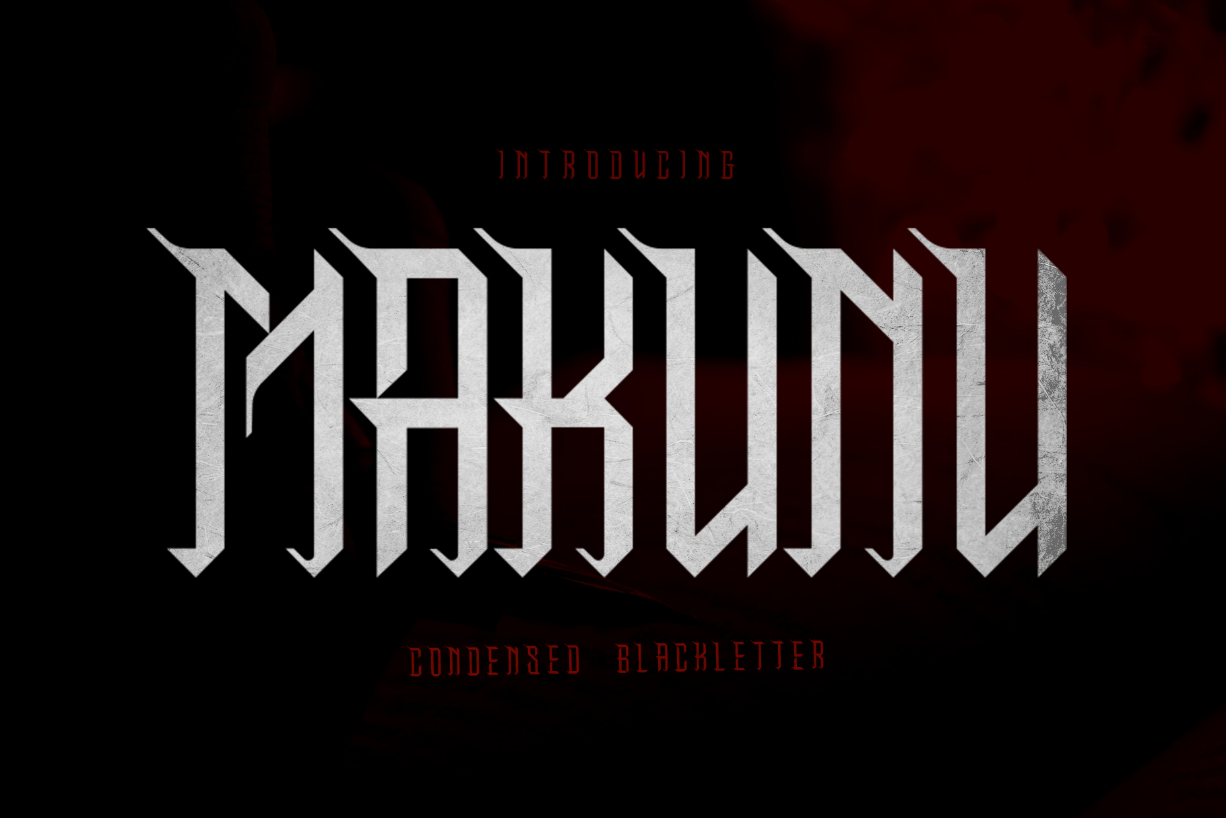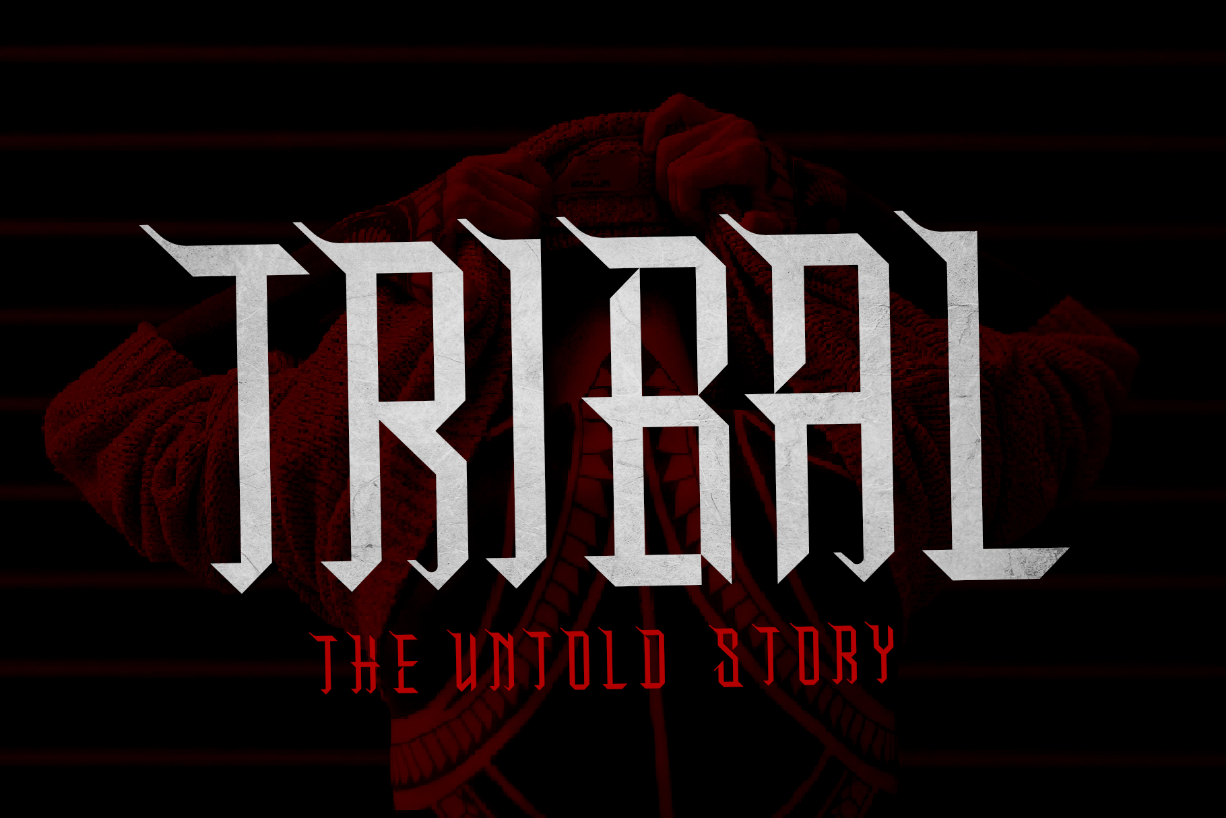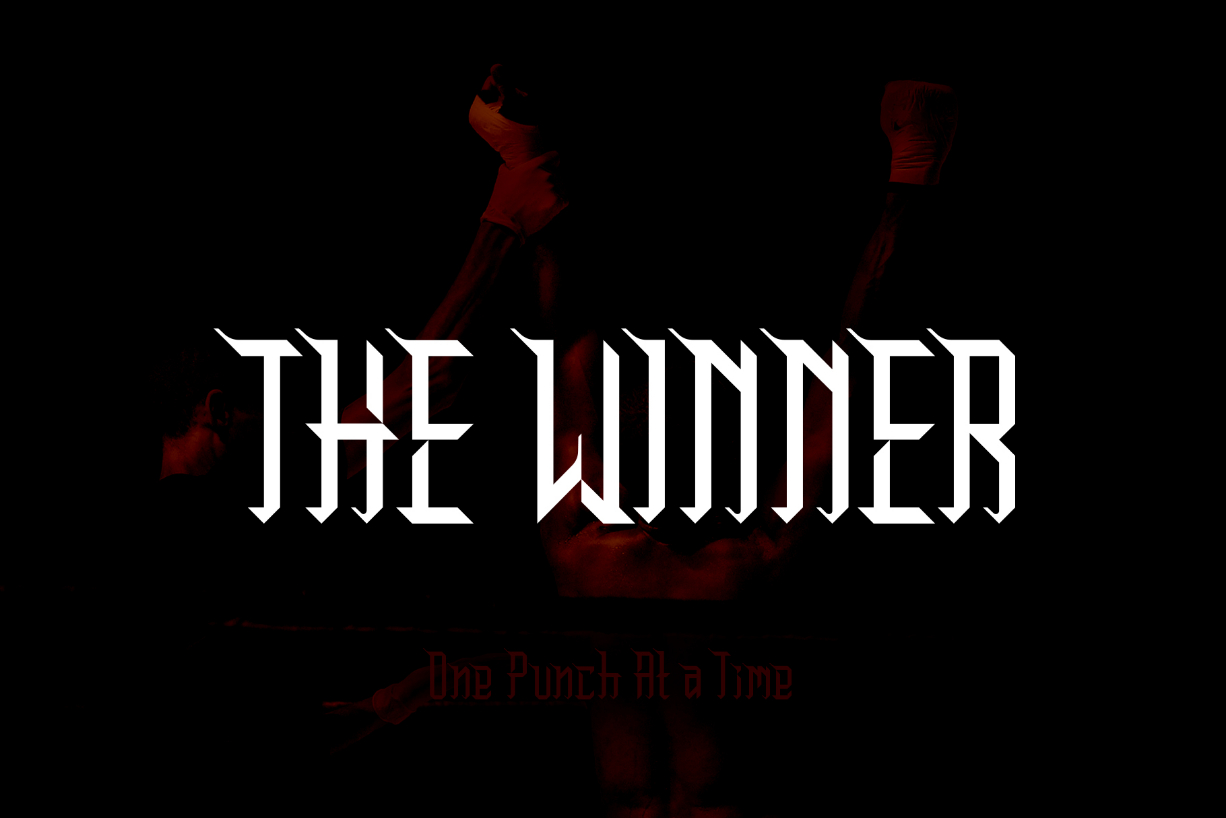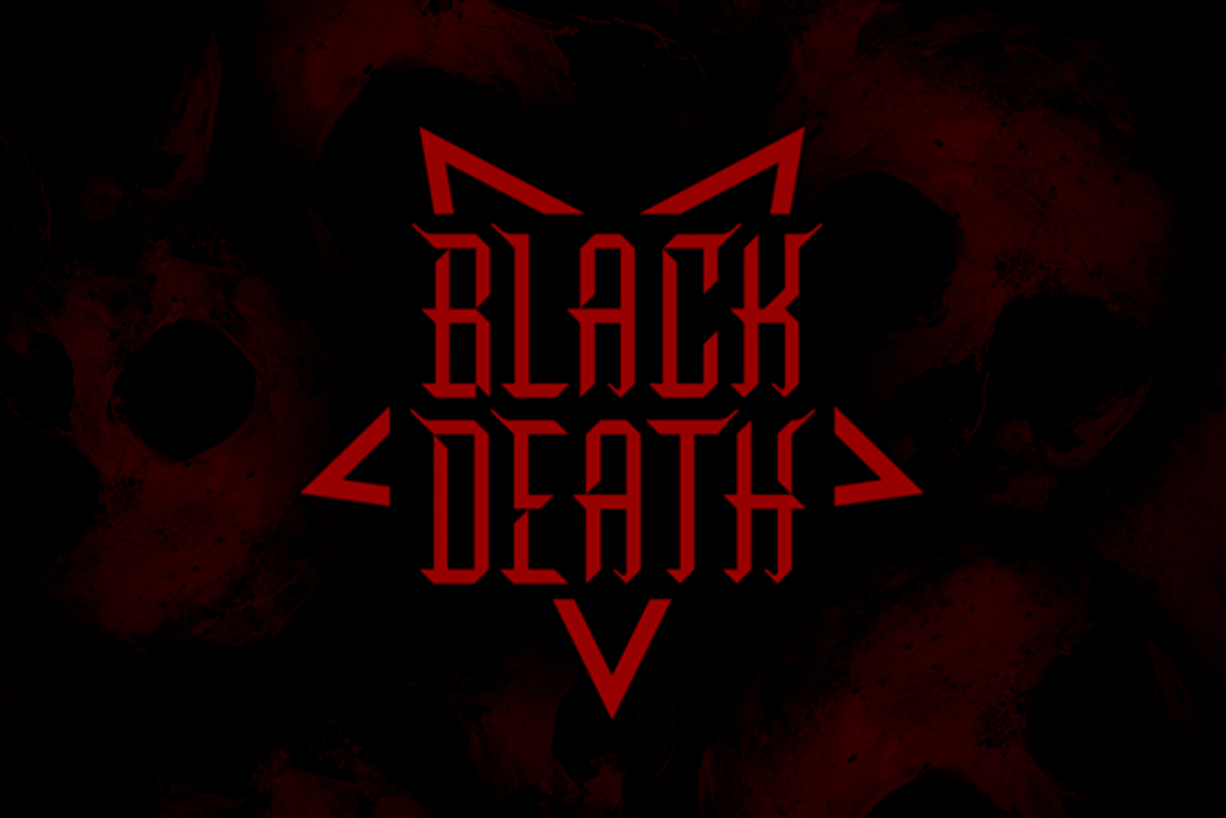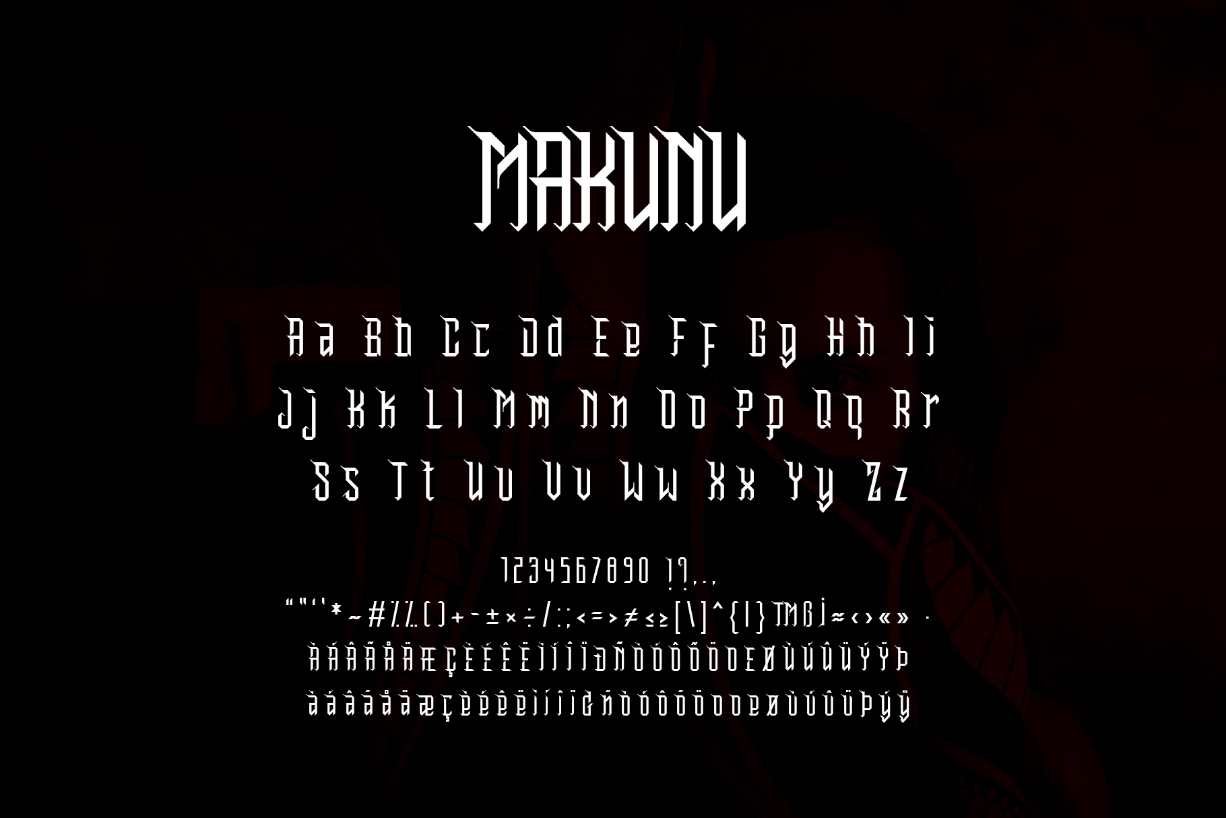
Makunu Font
About Makunu Font
Makunu is a bold and dramatic blackletter font. It is ideal for each of the creative designs that you wish to put forth!